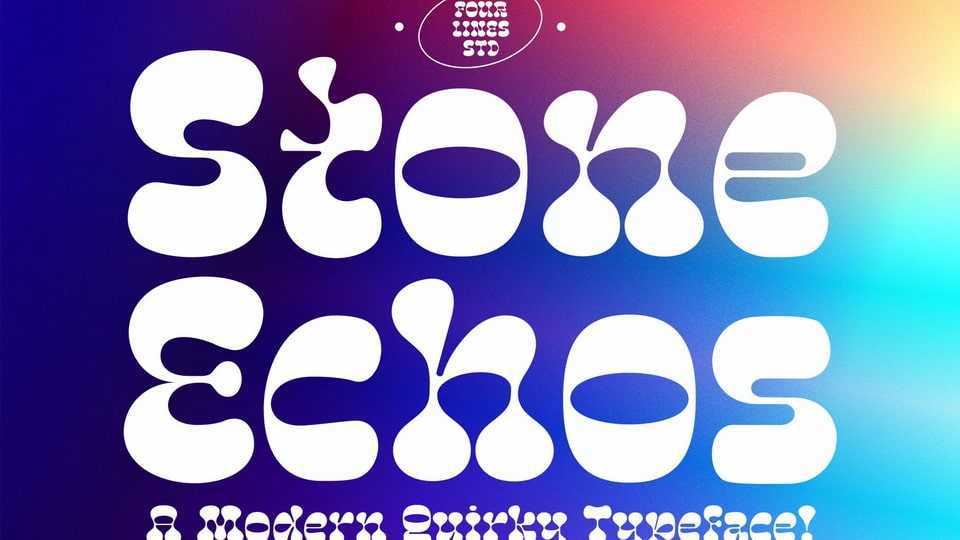
Download Stone Echoes font, a cool modern typeface for your projects! Its rounded, bubbly shapes add a hint of contemporary chic to your designs, balancing both playfulness and sophistication.
Designer: Fourlines Design